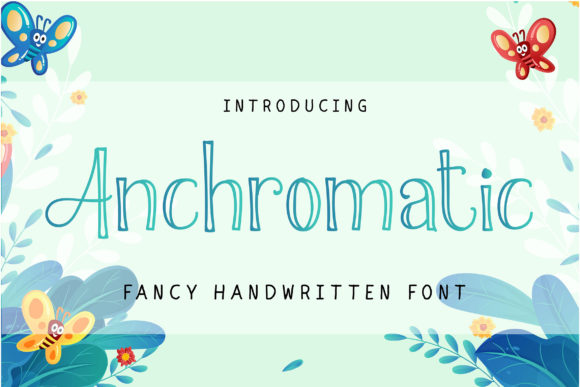
The Hunt for the Perfect Font: How Anchromatic Stole My Heart
I’ll never forget the time I was working on a project for a client who wanted a elegant, handwritten font to match their brand’s sophisticated vibe. I spent hours scouring the internet for the perfect font, but nothing seemed quite right. That was until I stumbled upon Anchromatic – a chic handwritten font that instantly caught my eye.
As soon as I saw Anchromatic, I knew I had found what I was looking for. The elegant touch and smooth lines of this font made it perfect for my client’s project. But what really sealed the deal was when I discovered that it was PUA encoded, making it easy to access all the glyphs and swashes I needed.
What I Love About Anchromatic ✨
- ✅ Elegant and sophisticated design that’s perfect for high-end projects
- ✅ Highly versatile and can be used for a variety of projects, from branding to invitations
- ✅ Easy to read and understand, even at small sizes
- ⚠️ Some users may find the font a bit too ornate for certain projects
- ⚠️ Limited availability of certain characters or glyphs in certain platforms
The Story Behind Anchromatic: Designer Inspiration
Anchromatic was designed with the intention of creating a elegant and sophisticated handwritten font that would be perfect for high-end projects. The designer wanted to create a font that would evoke a sense of luxury and refinement, while still being highly readable and versatile.
The design process involved countless hours of research and experimentation, from sketching out letterforms by hand to refining the digital version. The result is a font that is both beautiful and functional.
Q: Is Anchromatic suitable for body text?
A: While Anchromatic is a beautiful font, it may not be the best choice for body text due to its ornate nature. However, it can be used for short paragraphs or headings.